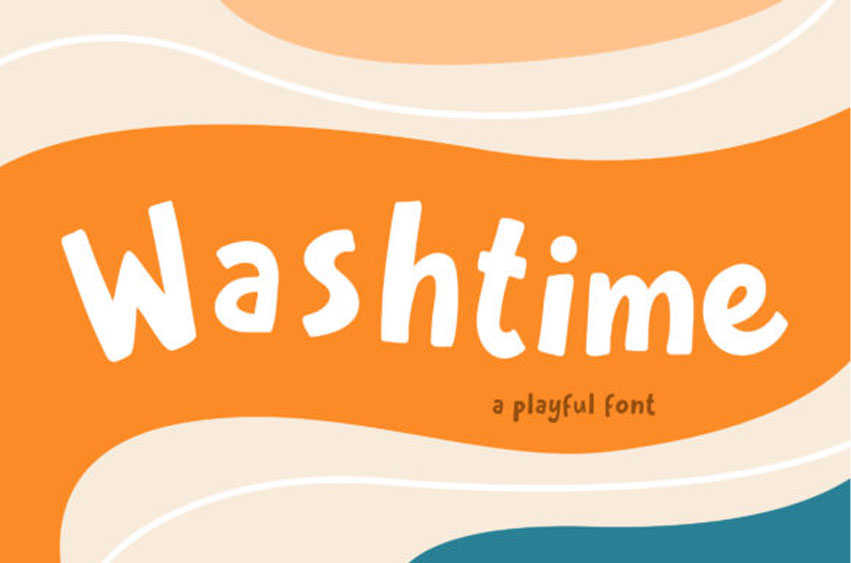
Washtime Font
Washtime Font is a cool and fun display font.
It is suitable for book texts, documentation, business reports, business correspondence, magazines, newspapers, posters, advertisements, multimedia, and corporate design.